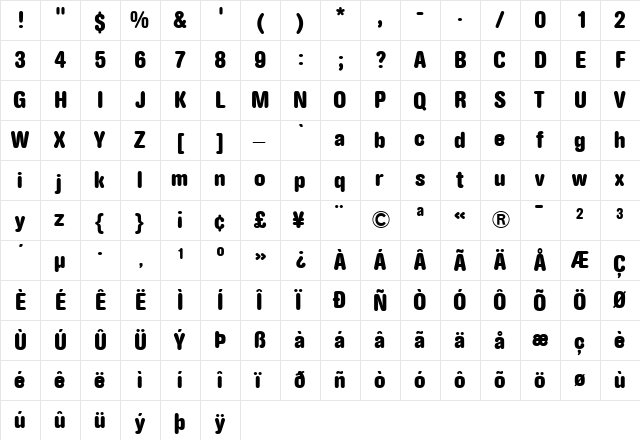
Design Context for AGRoundedBold-CondensedBook Typeface
AGRoundedBold-CondensedBook softens its letterforms with rounded terminals, giving it an approachable, friendly quality that works well in consumer-facing and digital contexts. Its bold stroke weight gives it real presence on the page.
A natural fit for tech startups, health and wellness brands, children's products, and friendly consumer apps.
Font Pairing: Pairs well with a rounded or humanist sans for body copy, maintaining the friendly tone without relying on AGRoundedBold-CondensedBook to carry extended reading.
Pro Tip: Pair AGRoundedBold-CondensedBook with a geometric sans for a balanced system — the rounded softness works as a warm counterpoint to harder-edged companions.